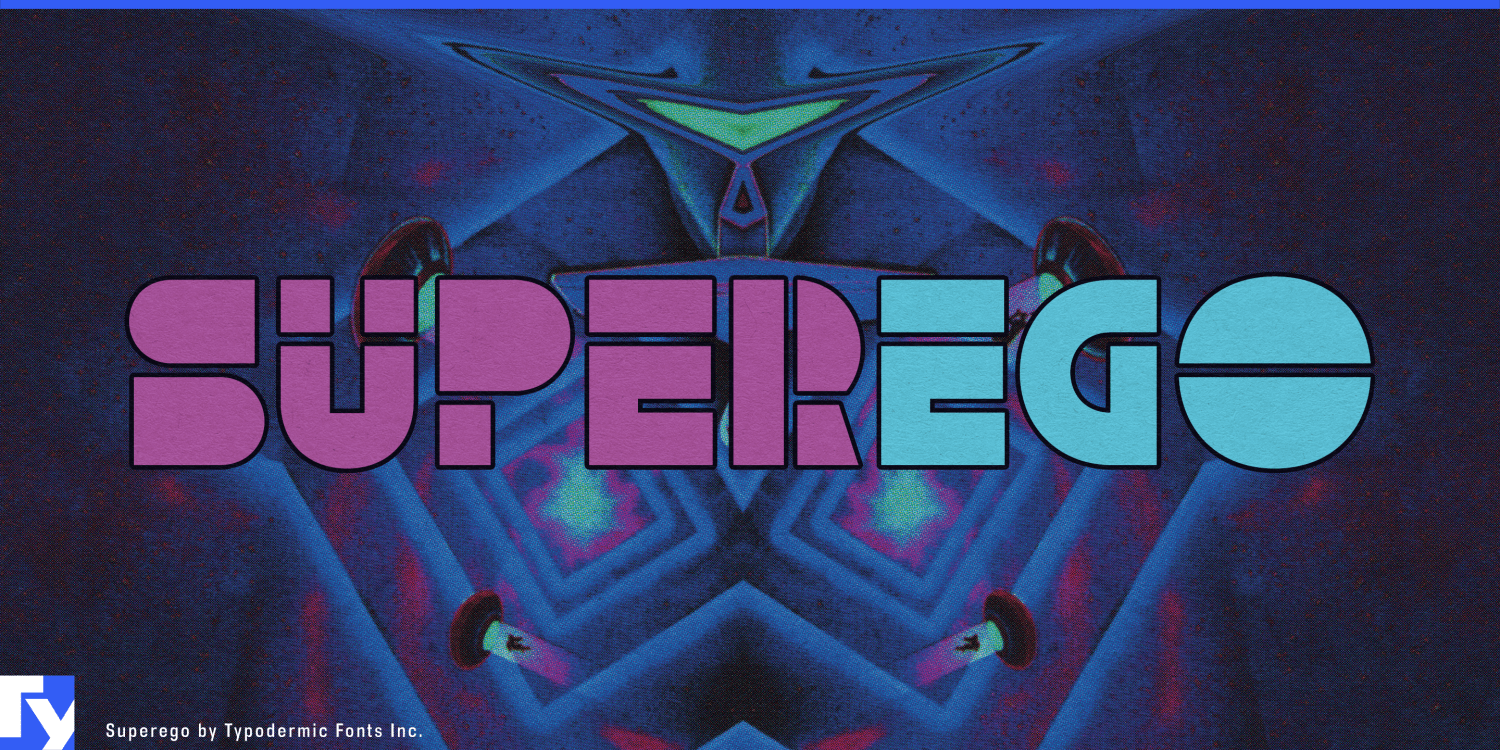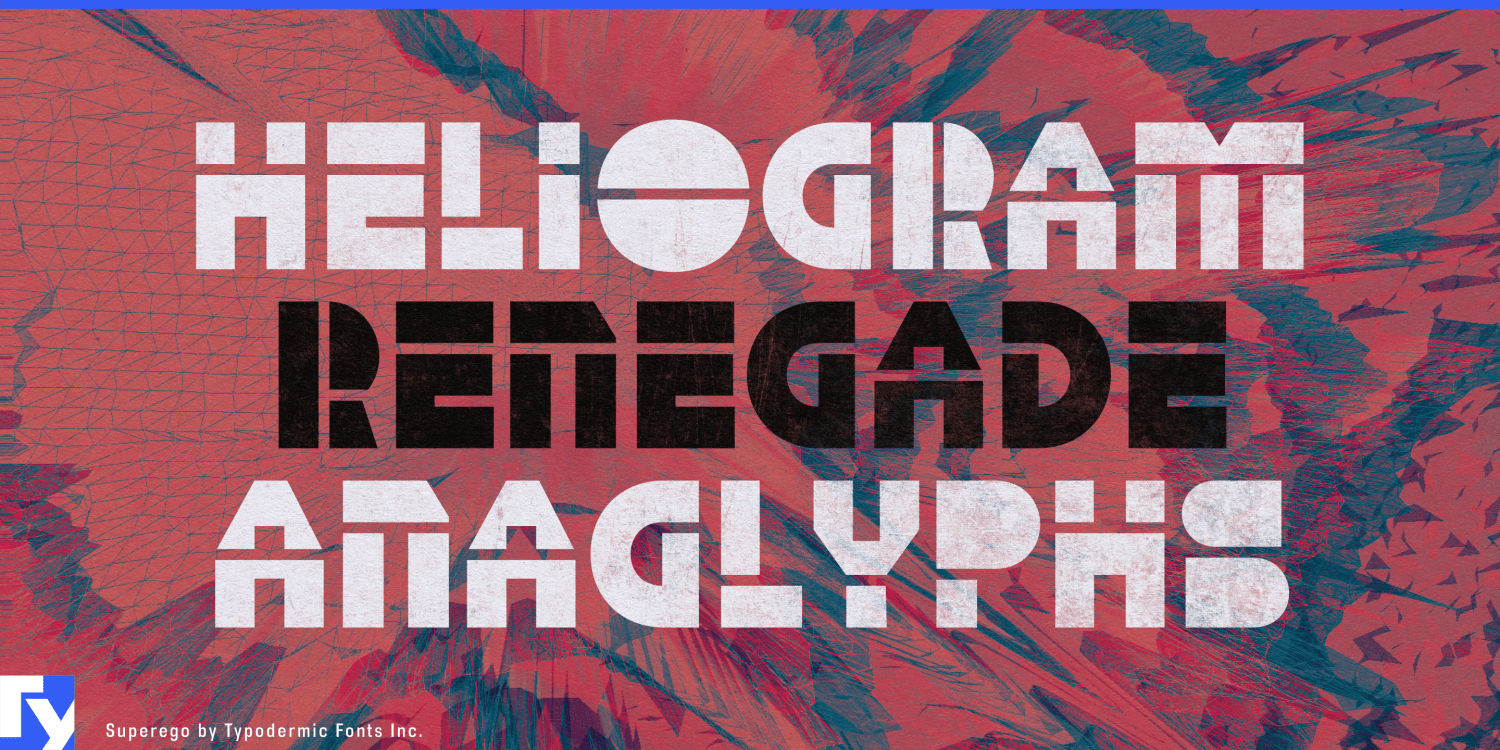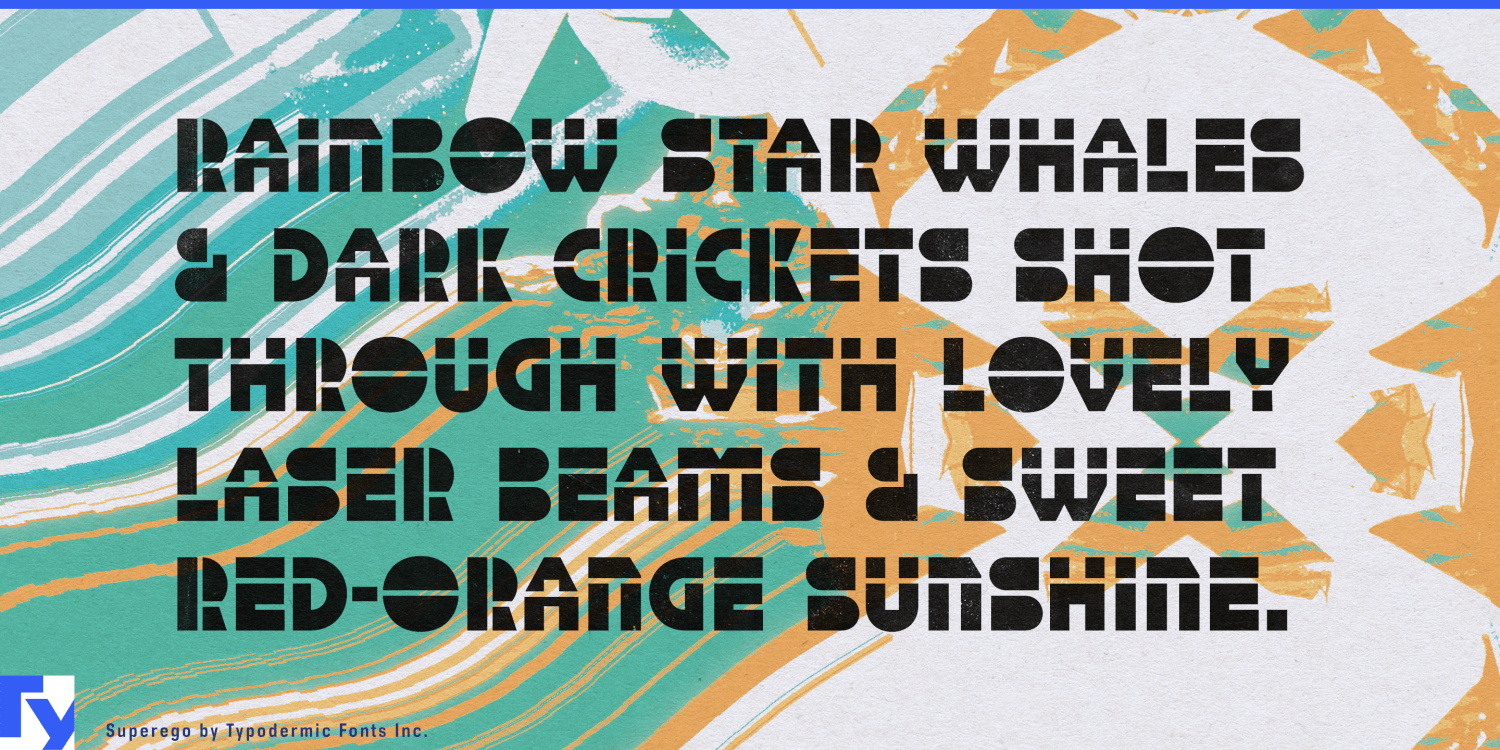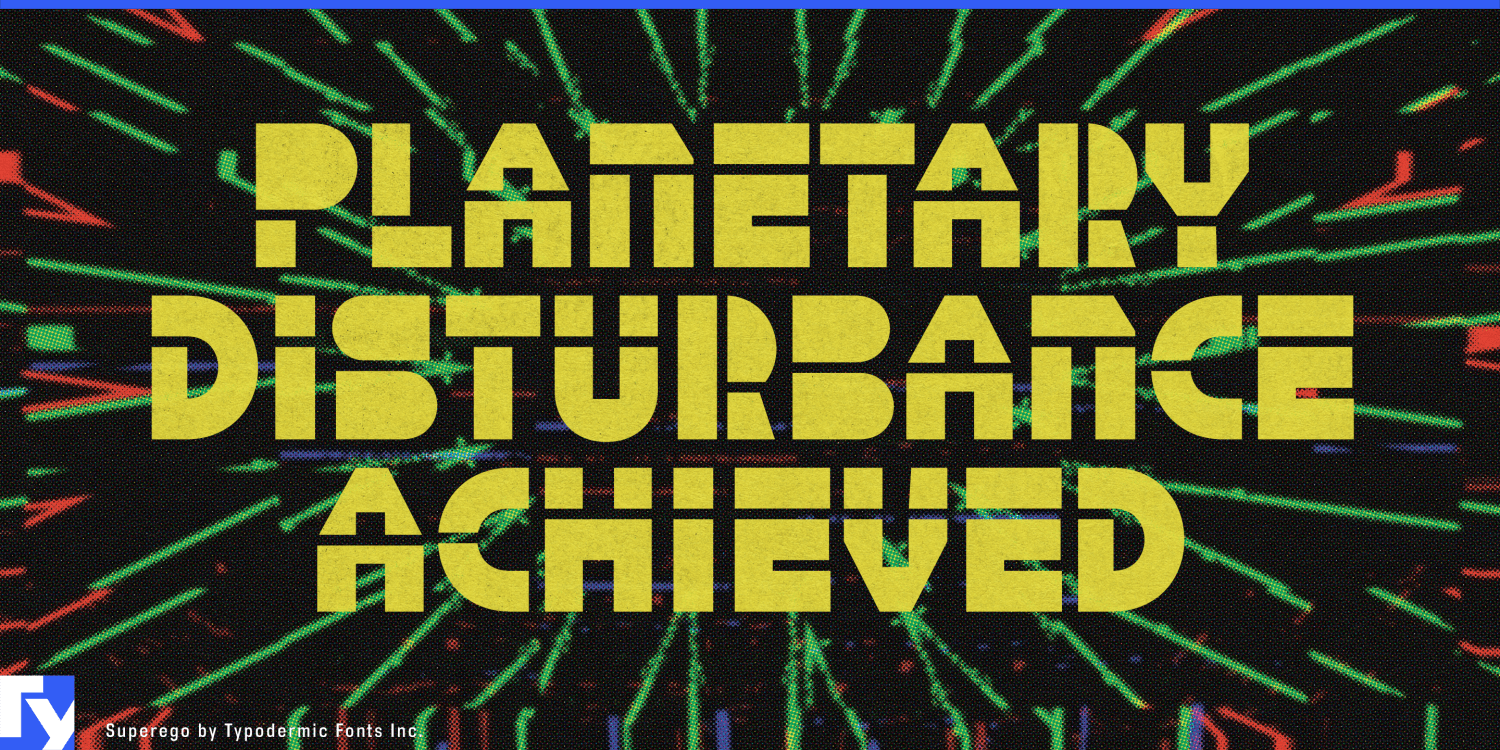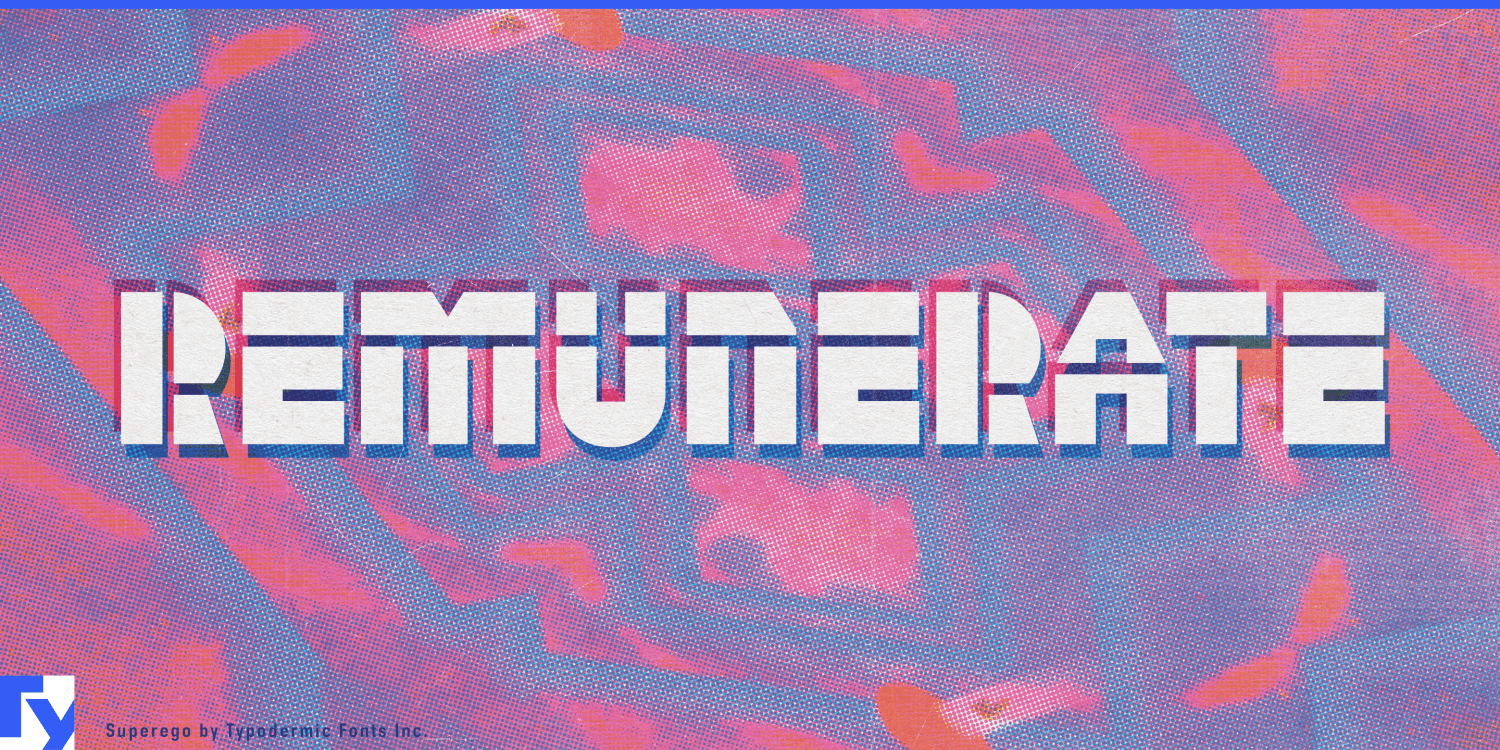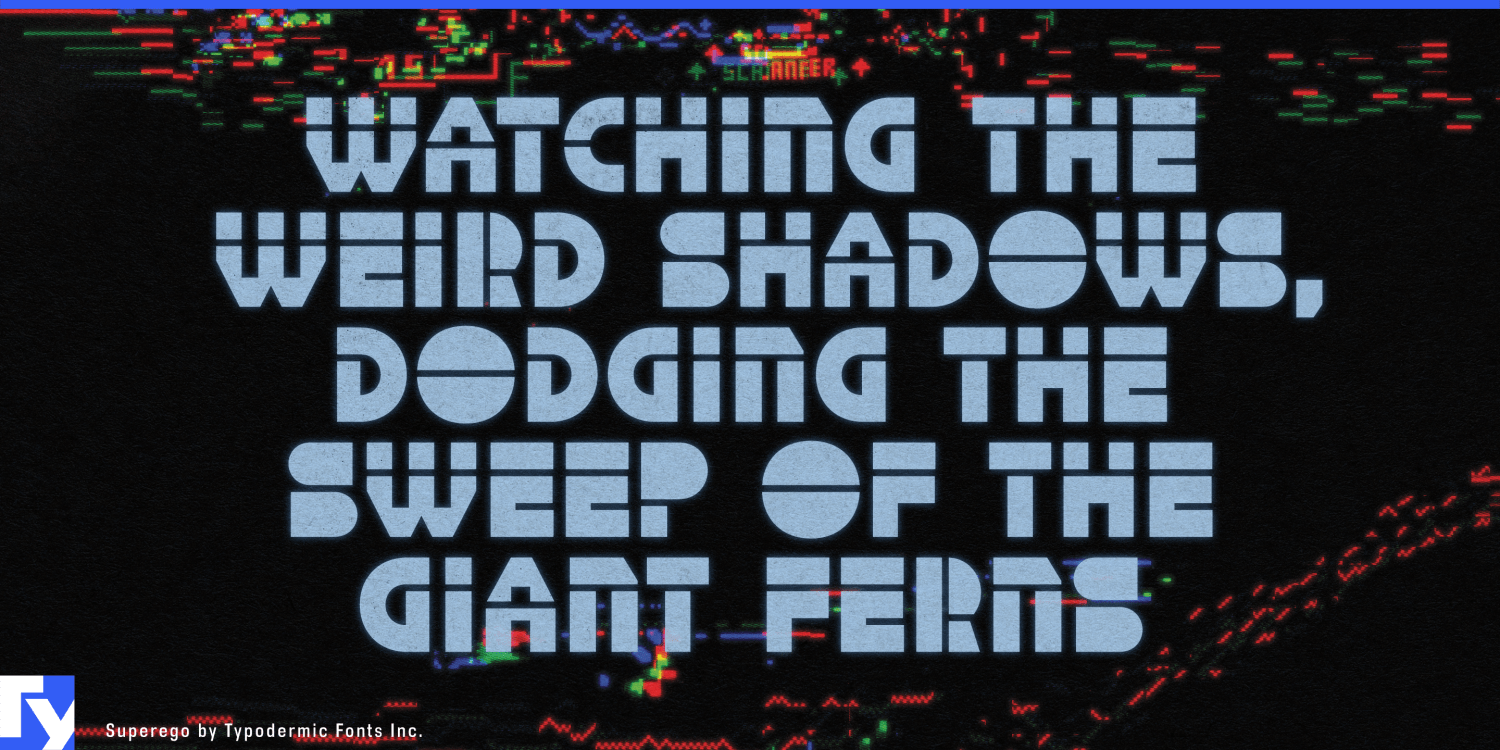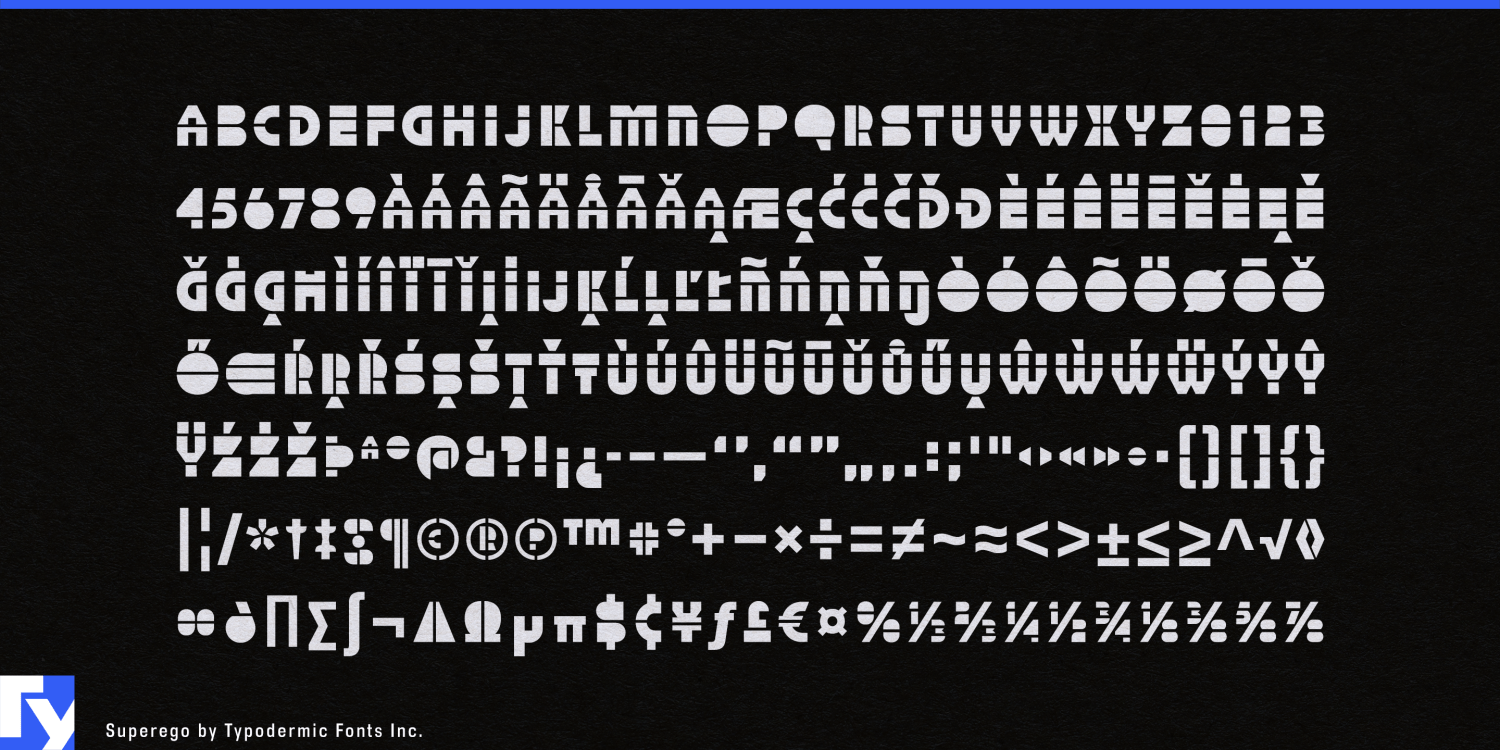
Superego
Font Family by Typodermic
Buy NowFuturistic display type often relies on grids, circuitry, segmented displays or hard rectangles. Superego takes a less obvious route. Its letterforms are assembled from circles, arcs, wedges, bars and other elementary geometric parts, recombined until familiar letters become strange again.
That makes Superego a natural fit for 3D modeling and digital fabrication, where simple primitives are routinely combined into more complex forms. CAD workshops, 3D-printing exhibitions, generative-design events and fabrication labs can use it for titles and product names that share the visual logic of the work itself.
Modular robotics and construction systems extend the idea into physical products. Educational robots, coding kits, mechanical construction sets and interchangeable electronics can use Superego for kit names, module families and STEM graphics without falling back on conventional rectilinear techno lettering.
The alphabet is also unusually suited to motion. Because the letters appear to be built from identifiable pieces, arcs can rotate, bars can slide, wedges can separate and whole words can collapse back into component shapes. Exhibition openers, product launches and motion identities can let the typography and surrounding graphics grow from the same kit of parts.
Geometry exhibitions, spatial-learning projects and shape-based games offer another natural territory. Superego works best where complexity emerges from simple forms; 3D modeling, digital fabrication, modular robotics, motion graphics and spatial systems all give its primitive geometry a reason to become unfamiliar.